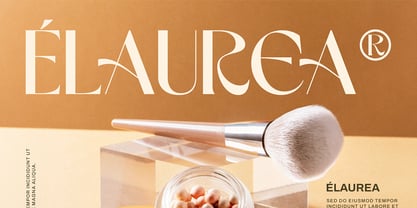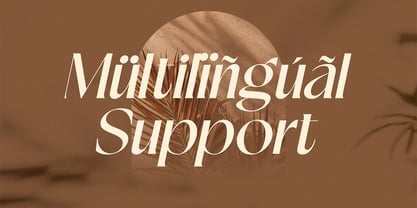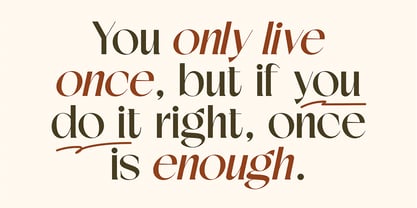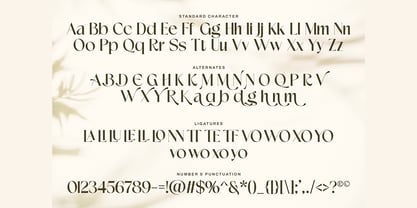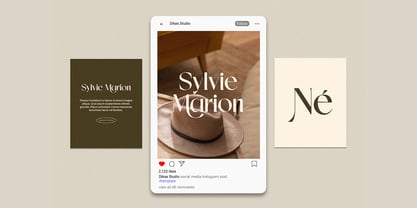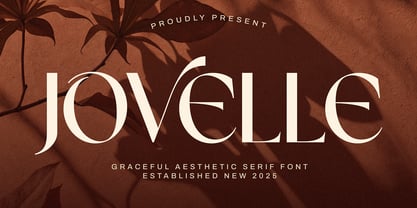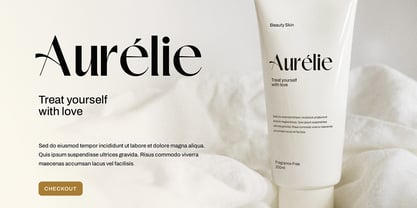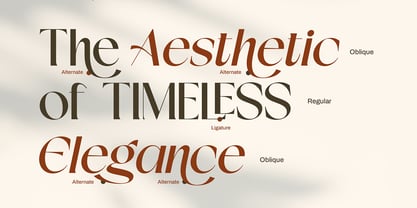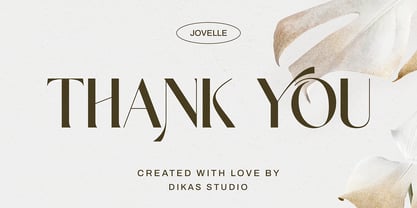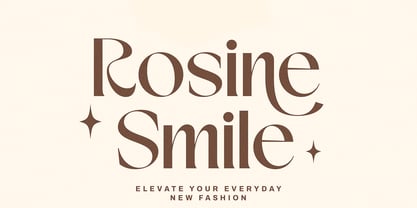
Jovelle
by Dikas Studio
The Jovelle Font Family was designed by Andika Setiawan and published by Dikas Studio. Jovelle contains 2 styles and family package options. More about this family
Introducing Jovelle – a refined sans serif font crafted to embody elegance, aesthetics, and luxury in every curve. With its clean yet graceful form, Jovelle exudes sophistication, making it a perfect choice for fashion logos, beauty salons, wedding brands, and upscale designs.
Feature
- Uppercase & Lowercase
- Punctuation & Number
- Multilingual Language
- Alternate Character & Ligature